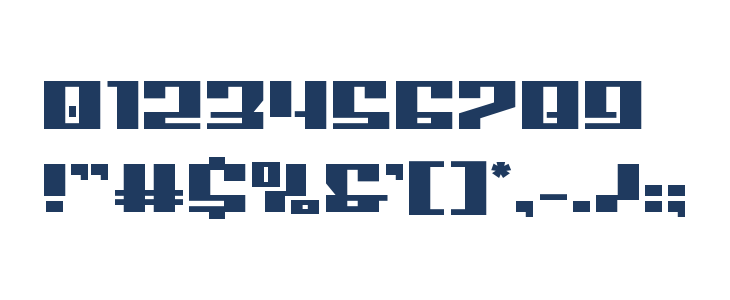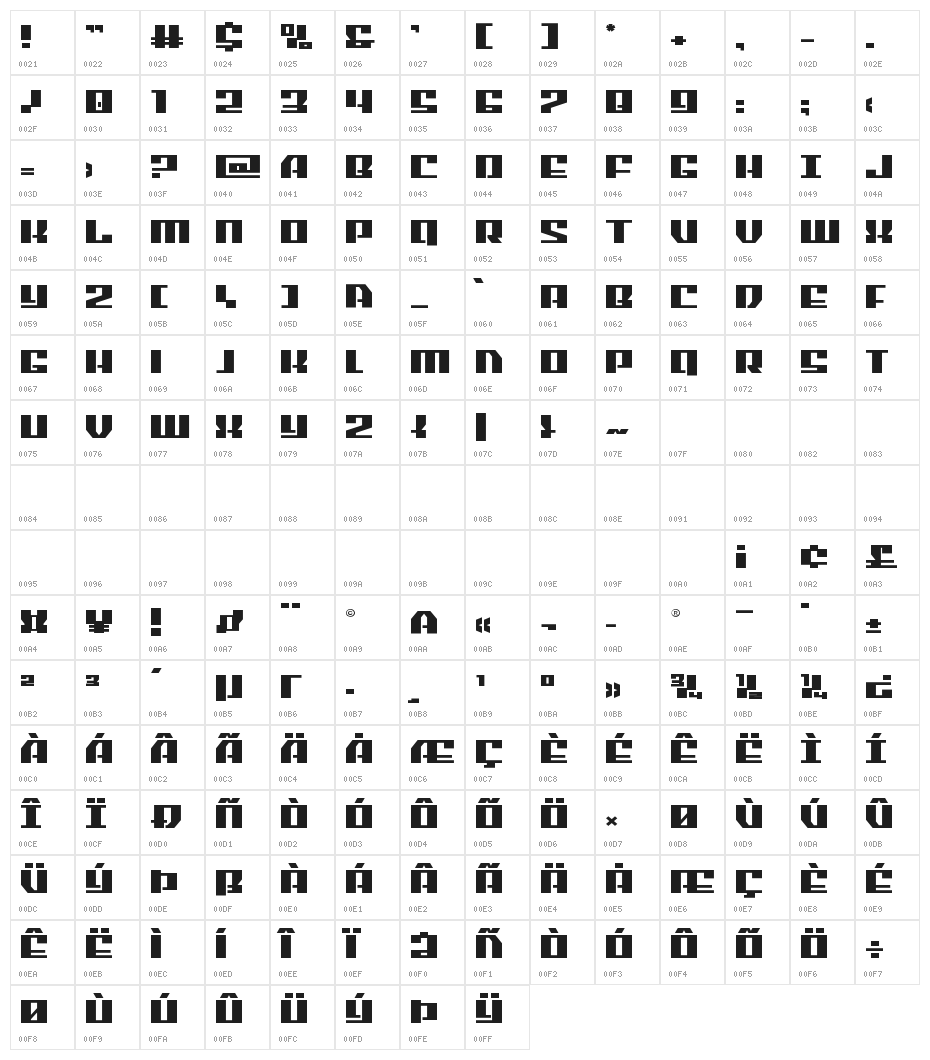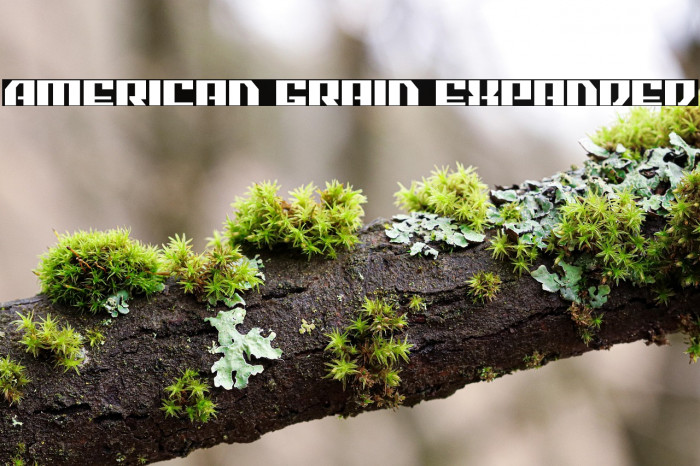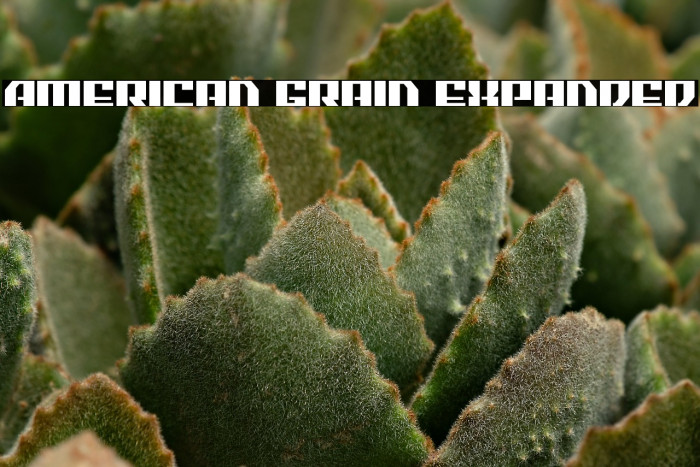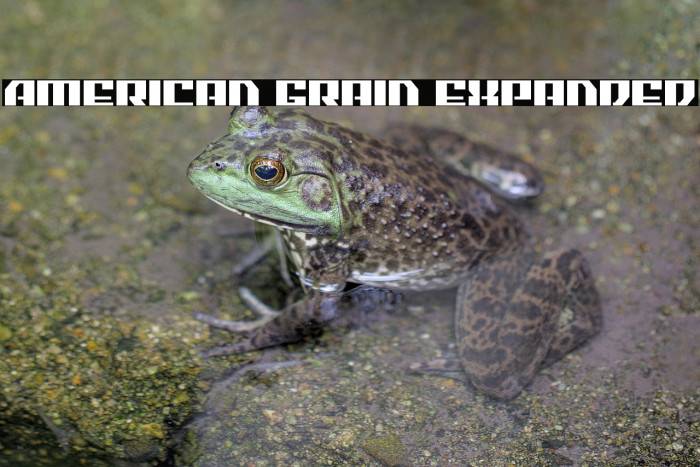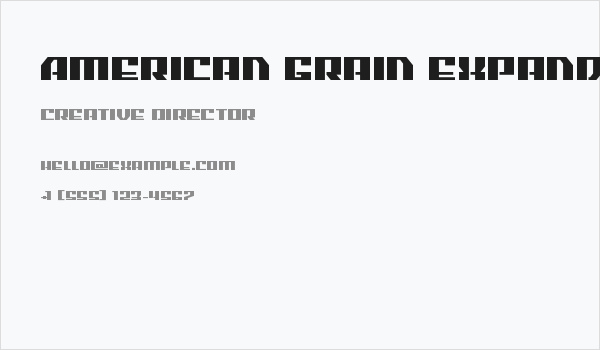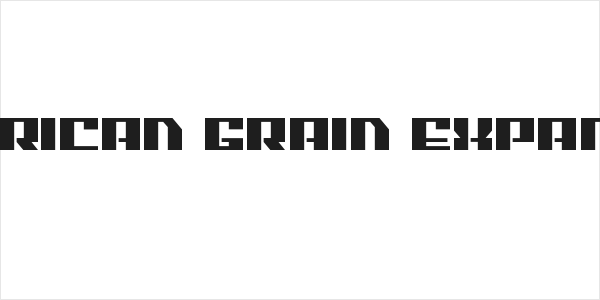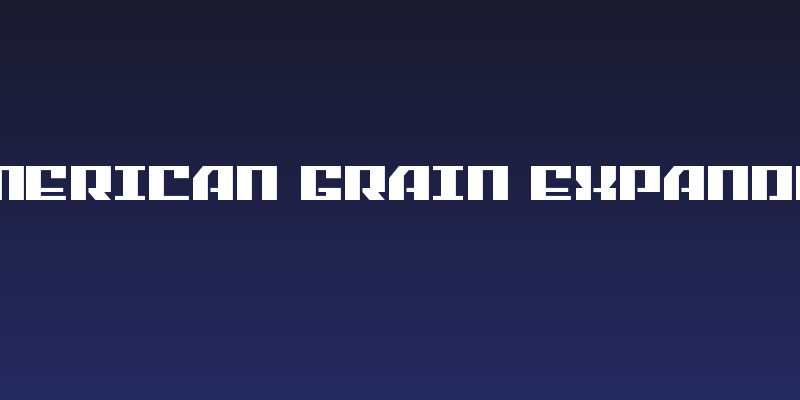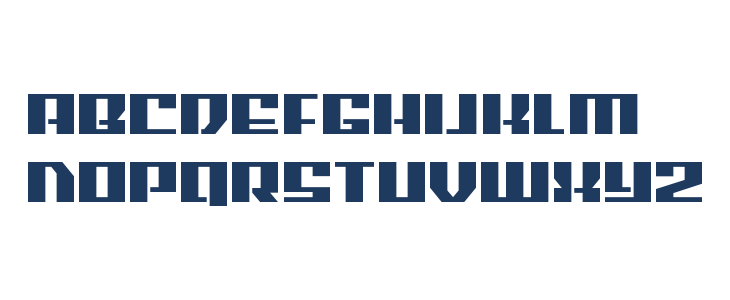
American Grain Expanded Font
American Grain Expanded Description
This font features a bold, geometric design with strong, angular lines and a distinctly modern aesthetic. The characters are constructed with a blocky, expanded style that emphasizes width and presence. Each letter and number is crafted with sharp edges and a uniform thickness, creating a cohesive and impactful visual impression. The font's design is reminiscent of industrial or futuristic themes, making it suitable for projects that require a strong, commanding typeface. The spacing between characters is tight, enhancing the compact and robust appearance of the text.